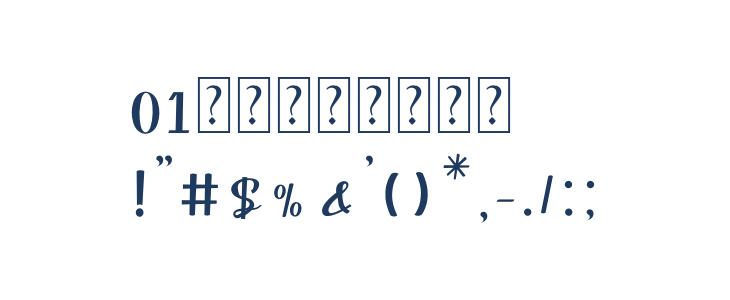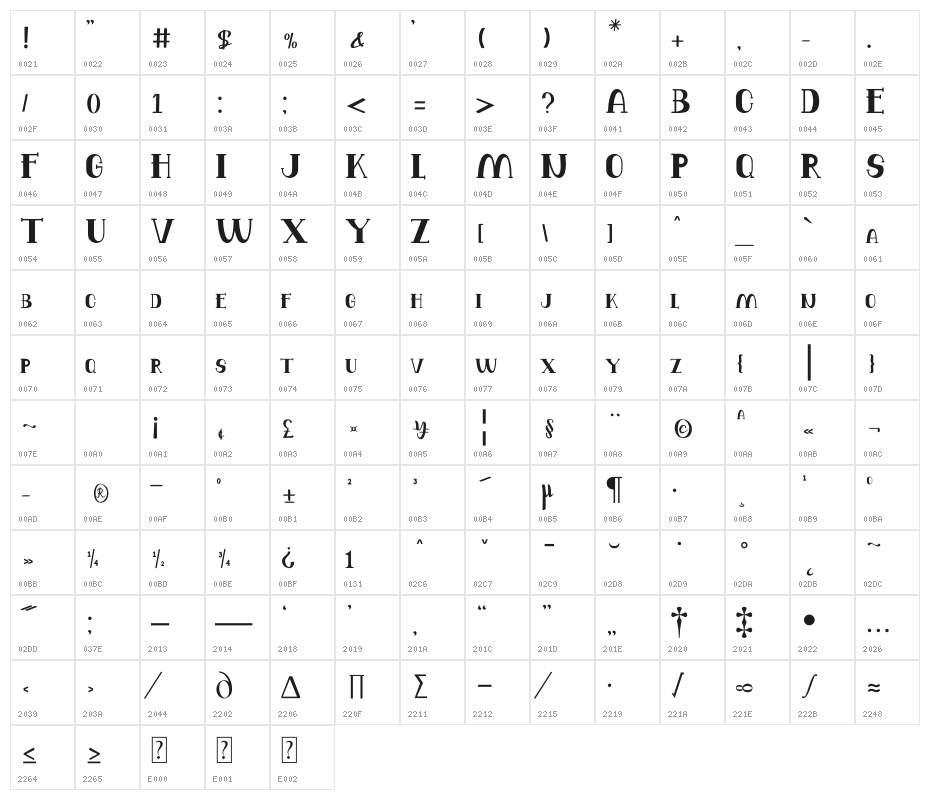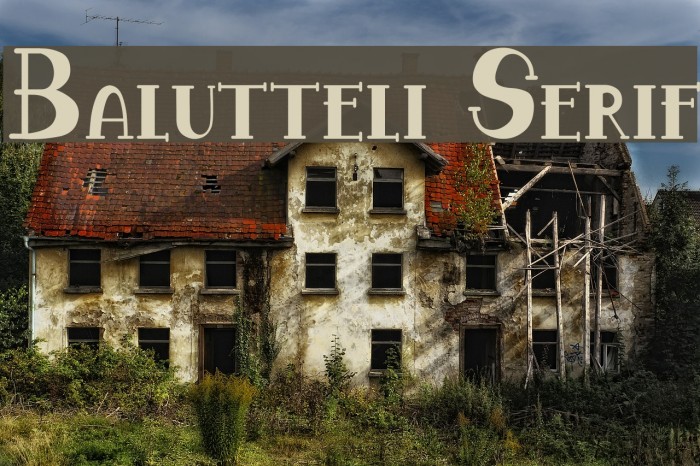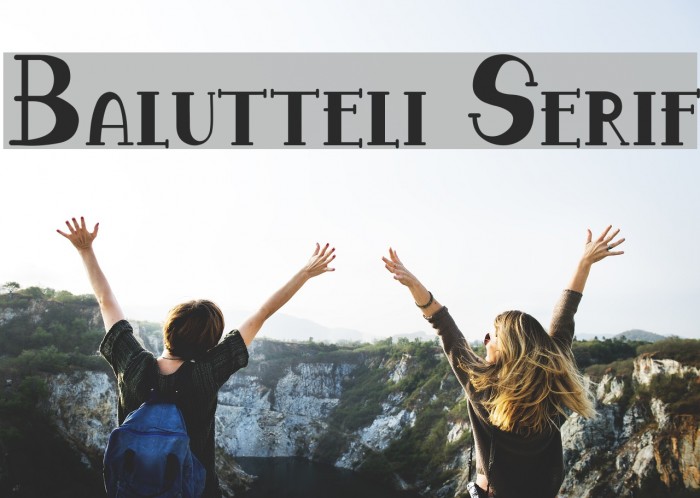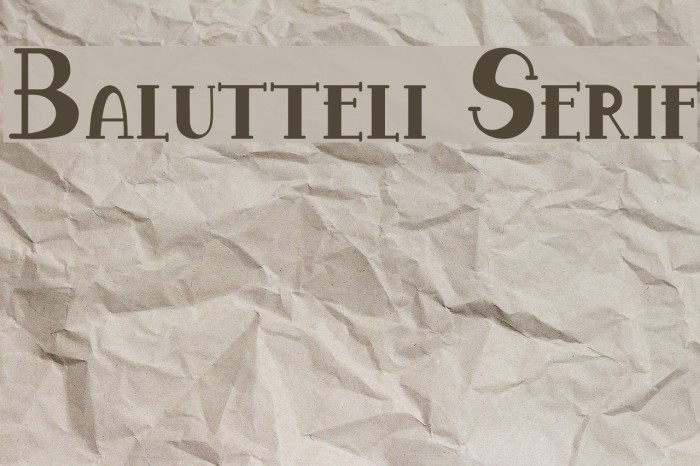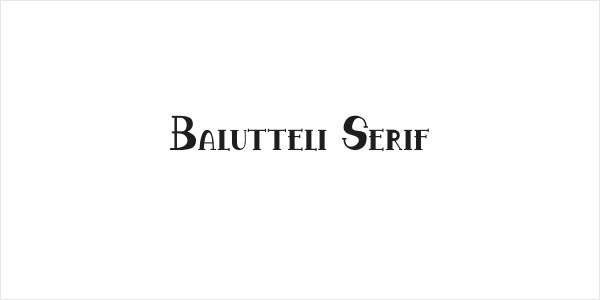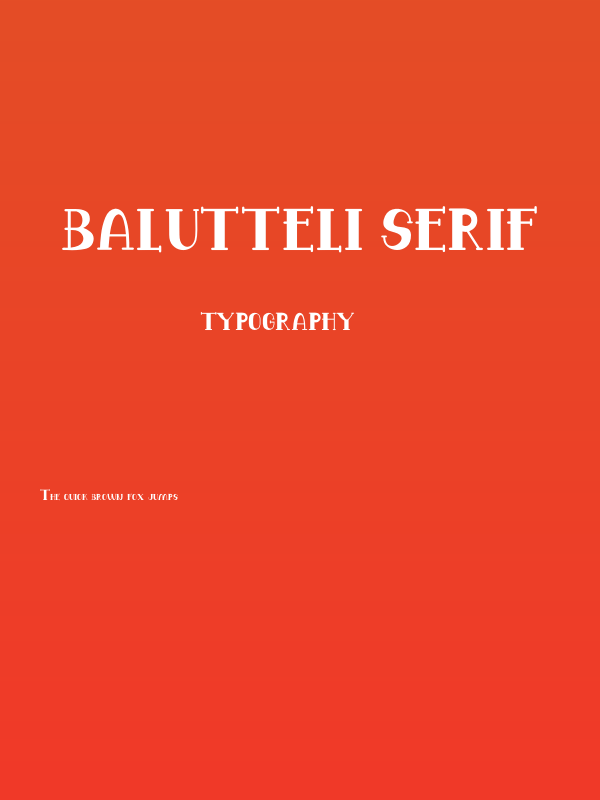
Balutteli Serif Font
Balutteli Serif Description
This font features a bold and distinctive serif style with a playful and decorative flair. The uppercase letters exhibit a unique blend of traditional serif elements with modern twists, such as exaggerated curves and varying stroke widths. The lowercase letters maintain a consistent style, complementing the uppercase with their own subtle quirks. Numbers are bold and clear, ensuring readability. Special characters are designed with the same attention to detail, making them stand out while maintaining harmony with the rest of the typeface. The overall design is both eye-catching and versatile, suitable for a variety of creative applications.